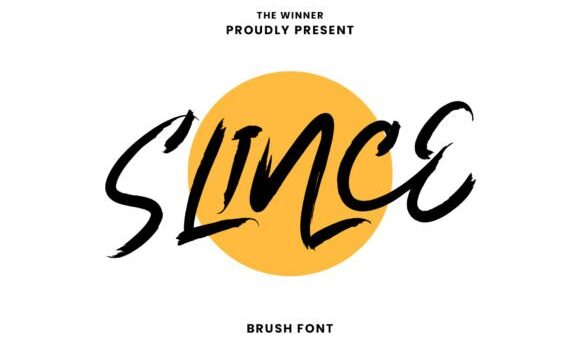
Slince Font – Free Download Introduction to Slince Font Slince is a cool, brushed script font, crafted to give your headlines and logotype projects a stylish touch. 📸 Preview Gallery 6 images 📌 Product Name Slince Font 👤 Author The1stWinner